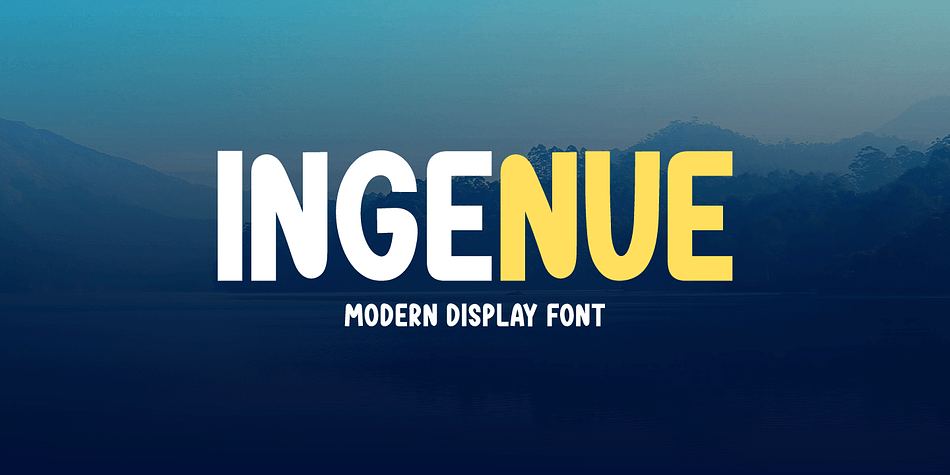
INGENUE
Designed by Md. Shohail Bhuiyan, Ingenue is a hand display font family published by Seemly Fonts.
Ingenue is a friendly and simple display font. It is perfectly suited for stationery, logos, t-shirt, paper, print design, website headers, photo frames, flyers, music covers, posters, image sliders, and much more.
Foundry Seemly Fonts
Style Hand Display
Designer Md. Shohail Bhuiyan